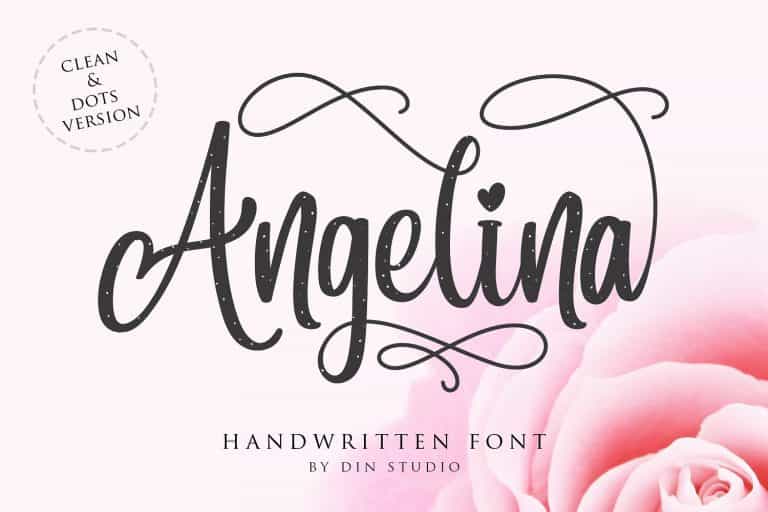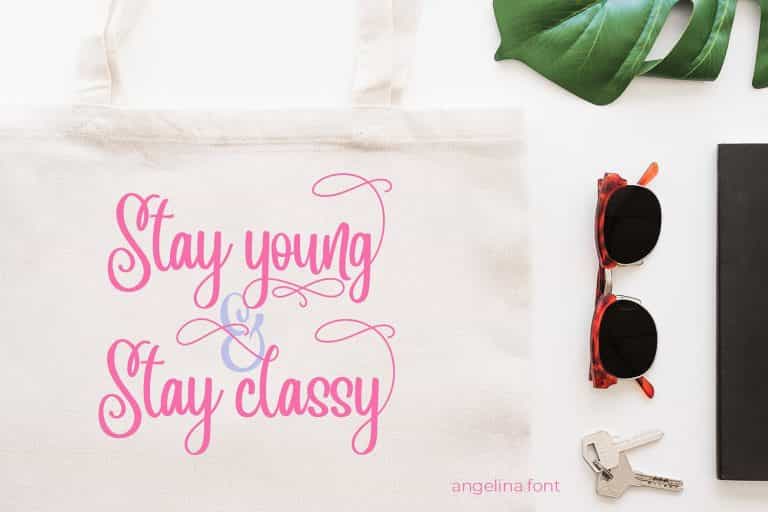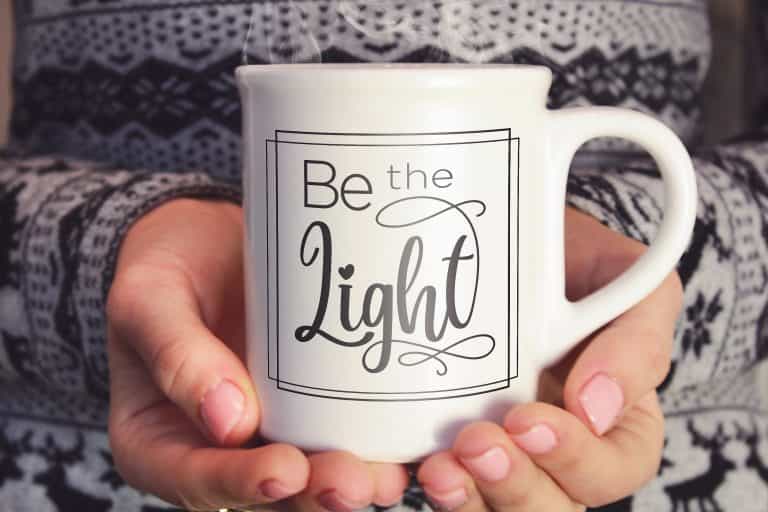
Discover Angelina Font, part of the Brush Calligraphy Handwritten collection—a versatile and unique font perfect for adding a personal touch to your projects. Download it for free and enjoy crafting designs with style, from invitations to social media posts. This font is available exclusively for personal use, giving you the freedom to create without limits. Unlock your creativity with Angelina Font today!
Introducing Angelina Font. Angelina – Beautiful Handwritten. Created in a way that would look like it was written by hand, but also had the modern style. it is a type of design that brings the beauty and modernity in it. The best to use Angelina font for wedding, branding, logotype and quotes.